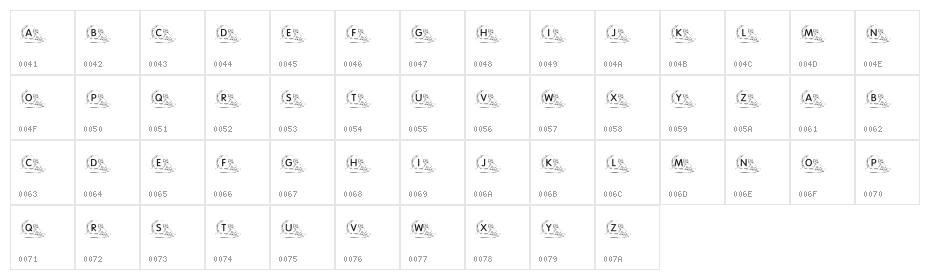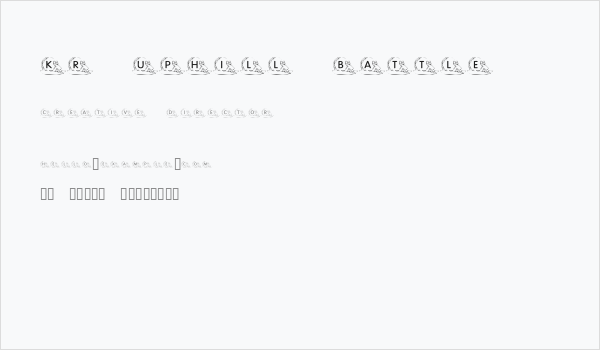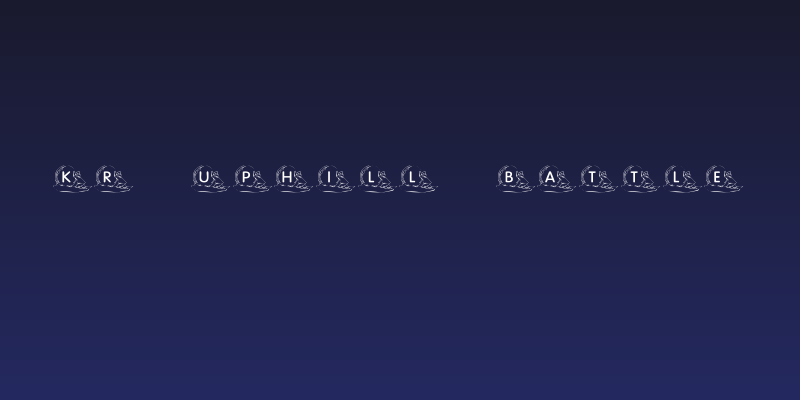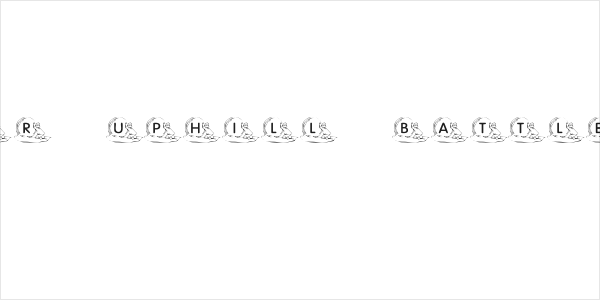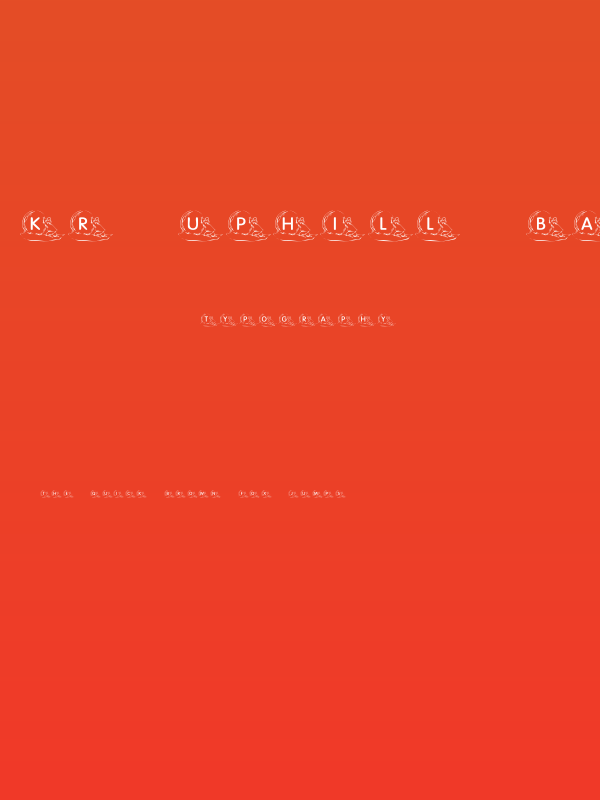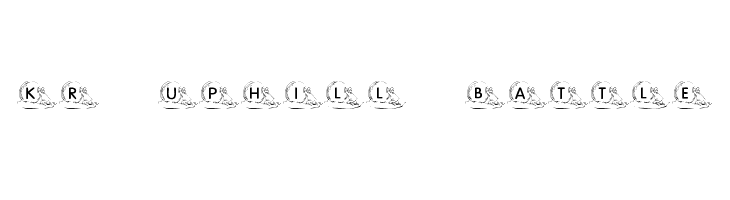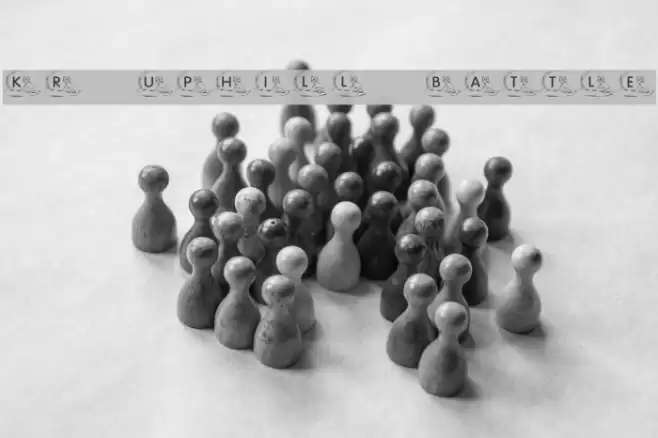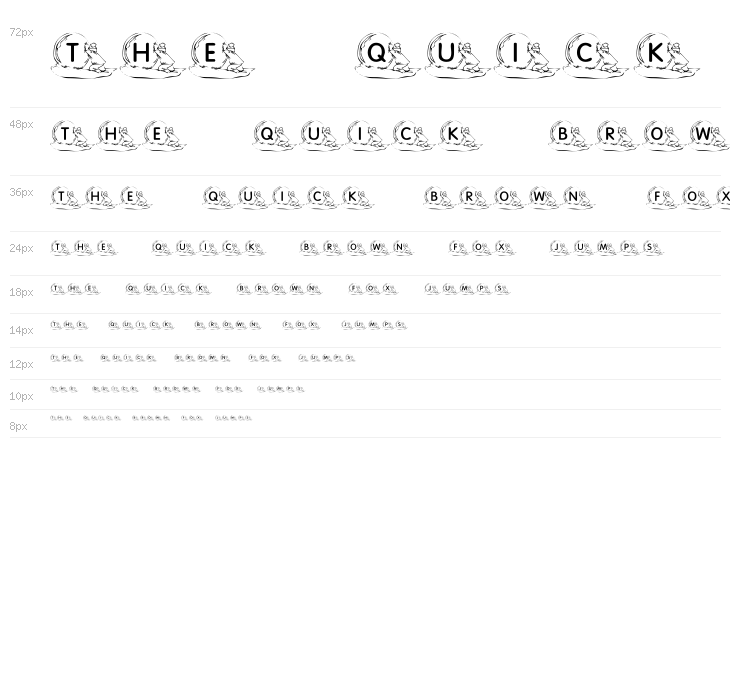
KR Uphill Battle Font
KR Uphill Battle Description
This decorative font features each letter encased within a circular design, accompanied by an intricate illustration of a frog climbing uphill. The uppercase letters are prominently displayed within these artistic circles, creating a whimsical and playful aesthetic. The font lacks lowercase letters, numbers, and special characters, focusing solely on the uppercase alphabet. The detailed artwork surrounding each letter adds a unique charm, making it suitable for creative and themed projects.
| Overall Style | Whimsical and playful |
| Proposed Projects | Ideal for children's book covers, playful invitations, themed event posters, and creative branding. |